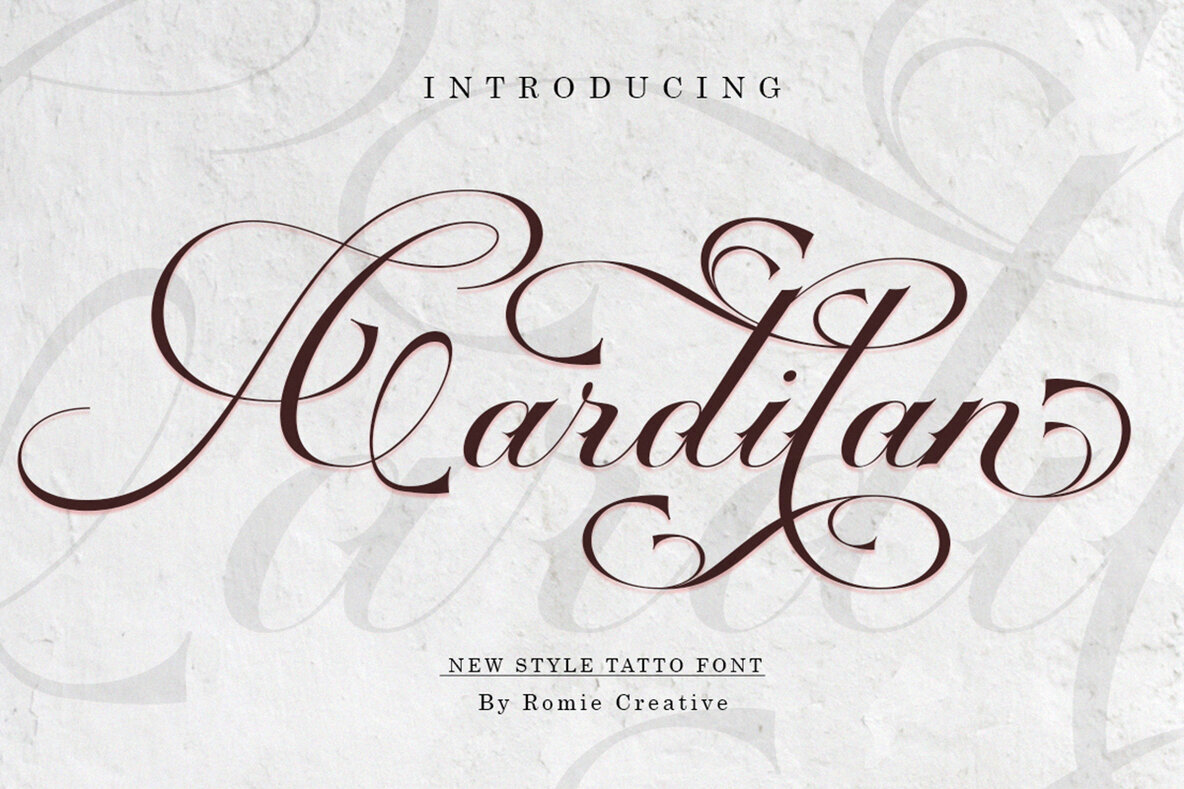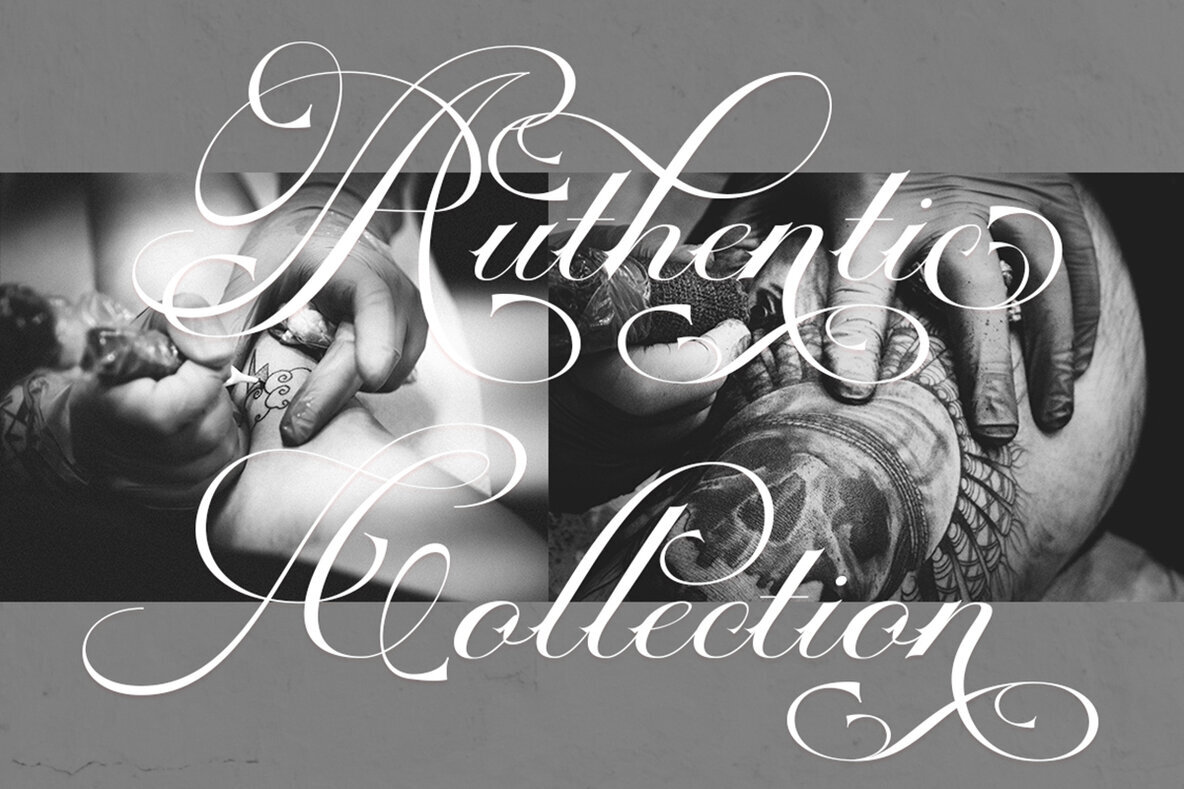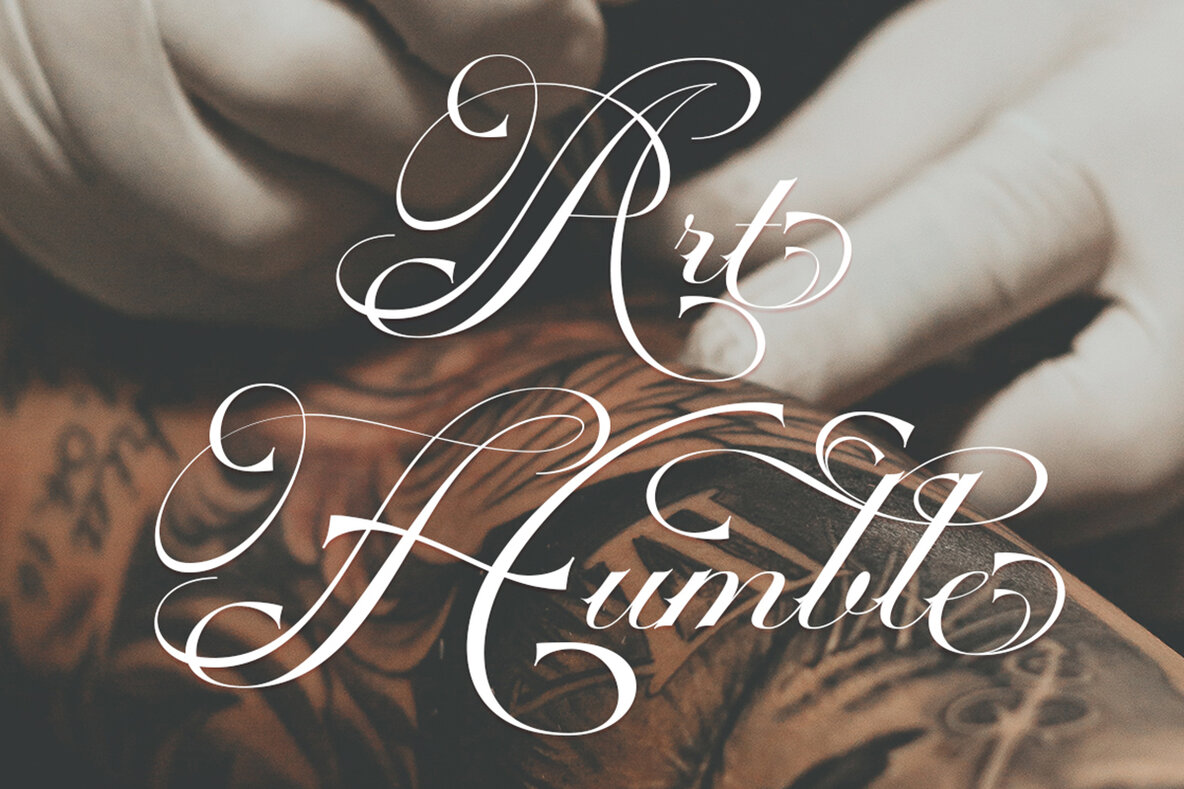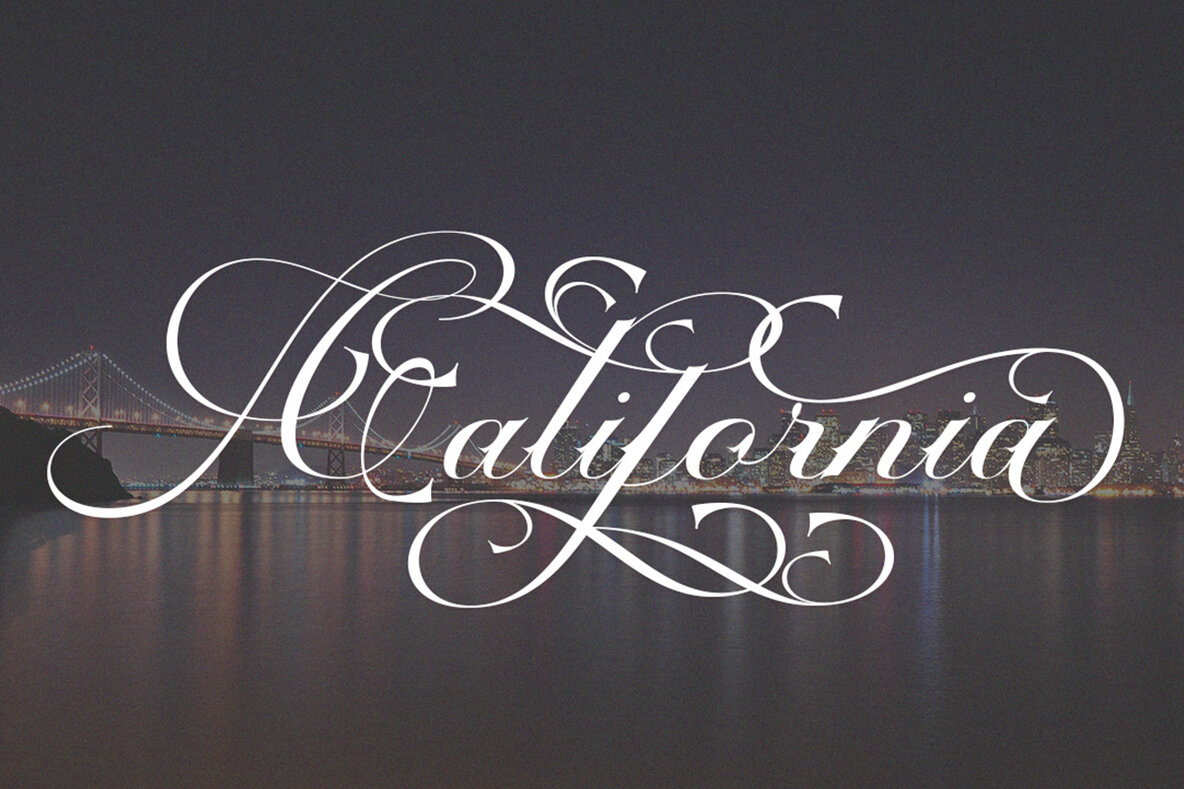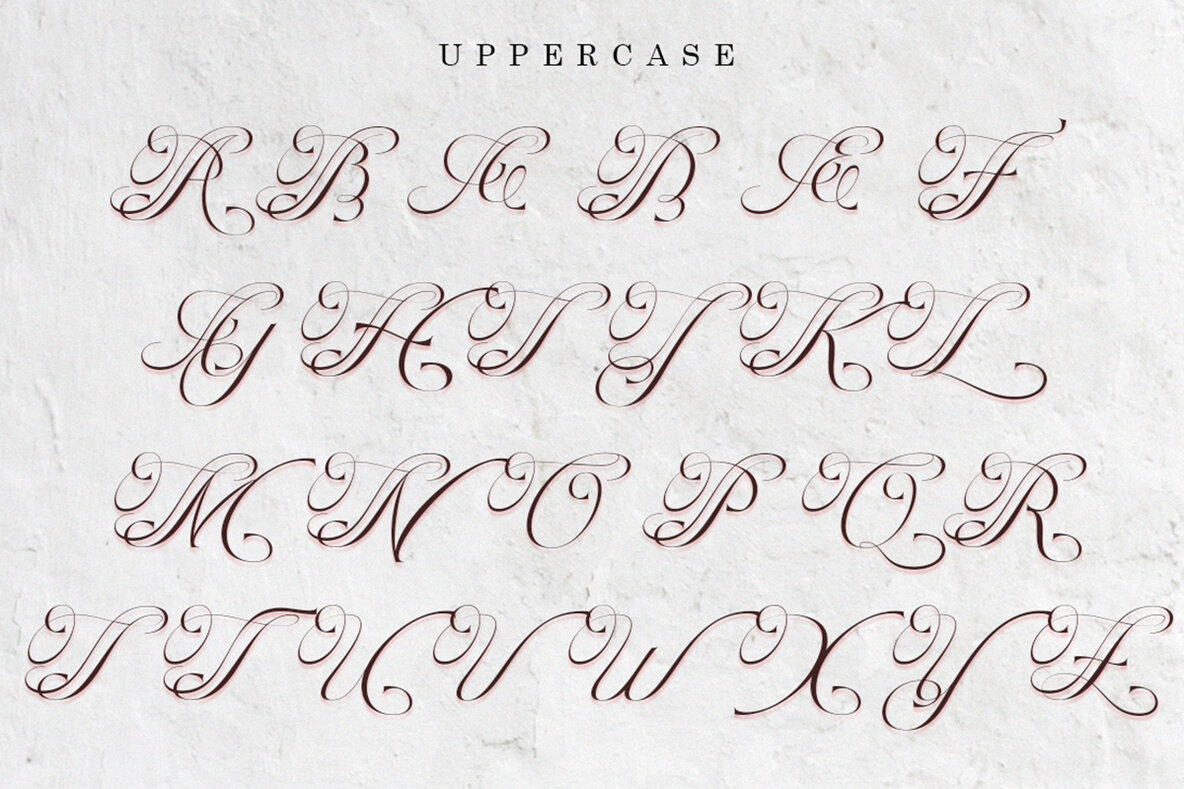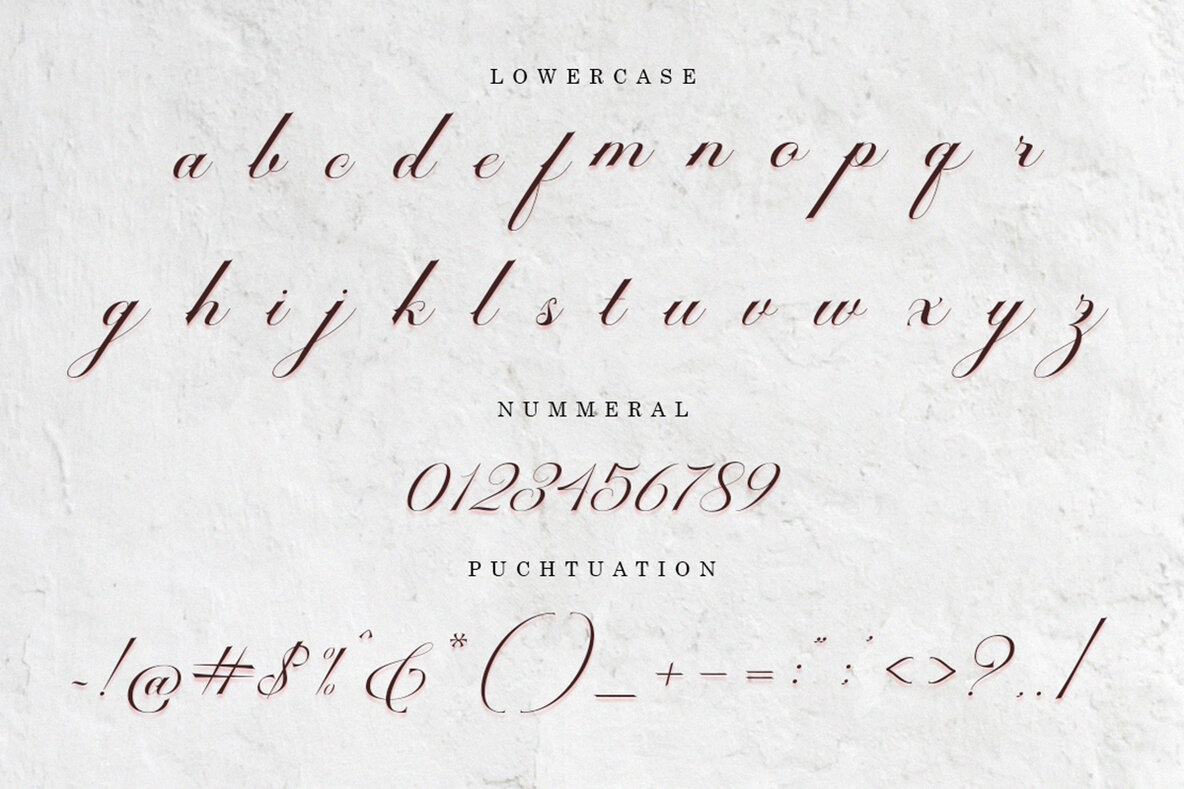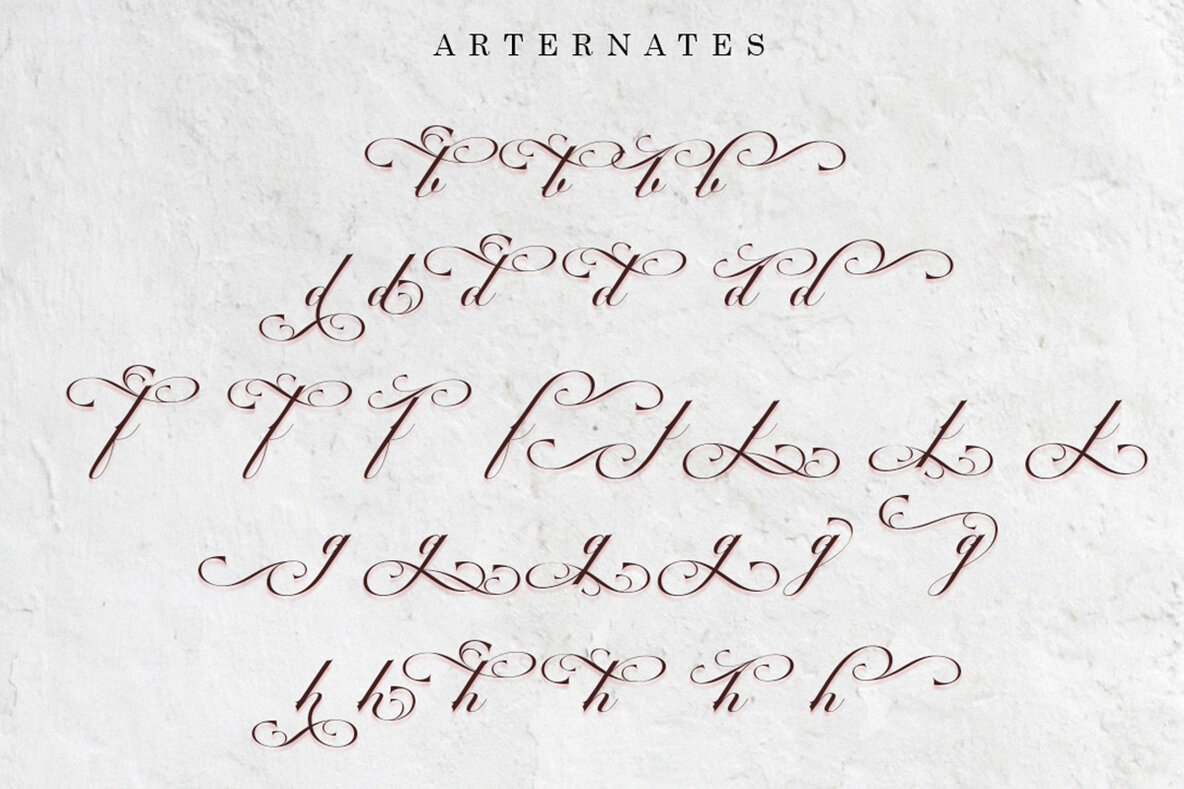
Cardilan Tatto Font
Cardilan Tatto
Cardilan Tatto is a versatile font designed to add a unique touch to your creative projects. This font comes with a complete set of uppercase and lowercase letters, offering you the flexibility to craft visually engaging text compositions. It includes numbers, a variety of punctuations, and thoughtfully designed ligatures, enhancing your typography work. The lowercase letters are equipped with line endings and alternative styles, allowing you to explore different design possibilities.
Cardilan also supports multiple languages, making it an ideal choice for international projects. Its features include swashes and Opentype support, providing added options for stylistic lettering. Whether you’re working on digital media, print designs, or branding materials, Cardilan's diverse characteristics make it a valuable addition to your font library.